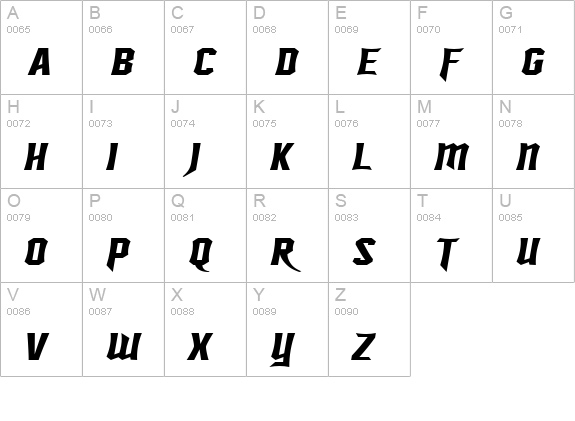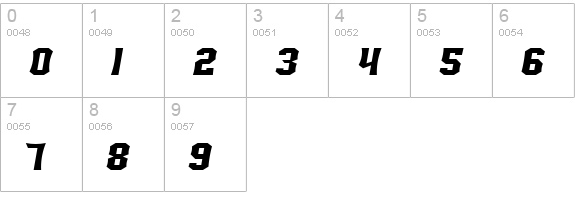
SF Ironsides Extended Italic Font Details
SF Ironsides Extended Italic is a distinctive, extended-width, italic variant in the SF typeface family \xE2\x80\x94 well suited to design and typography projects.
SF Ironsides Extended Italic is a visually striking font that effortlessly combines elegance with a touch of modernity. Its sleek and elongated letterforms exude a sense of sophistication, making it a perfect choice for projects that require a bold and refined aesthetic. With its extended and slanted italic design, SF Ironsides Extended Italic commands attention and adds a unique flair to any creative endeavor. Whether it's used for headlines, titles, or logos, this font will undoubtedly make a lasting impression. The versatility of SF Ironsides Extended Italic knows no bounds. Its bold strokes and distinct letter shapes make it equally suitable for both digital and print applications. From websites and social media graphics to brochures and advertisements, this font will effortlessly elevate any design. What makes SF Ironsides Extended Italic even more appealing is that it is freely available to download at FontsMarket.com. This means that designers, creatives, and enthusiasts alike can access this remarkable font without any cost. Its availability as a free font ensures that everyone can enjoy the beauty and impact that SF Ironsides Extended Italic brings to their designs. So, whether you're a professional designer looking to add a touch of sophistication to your projects or an individual embarking on a personal creative endeavor, SF Ironsides Extended Italic is the ideal font choice. Its sleek and modern aesthetic, combined with its availability as a free download, makes it a truly irresistible option for any design enthusiast.